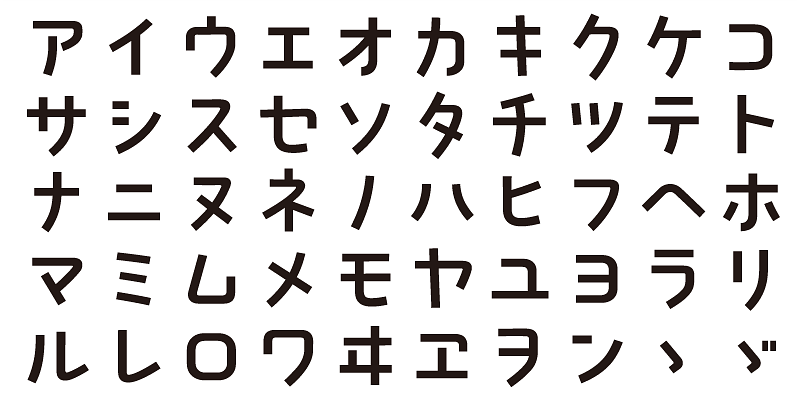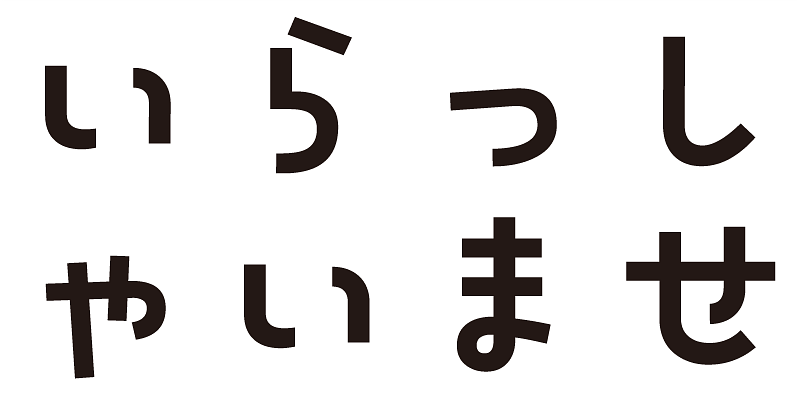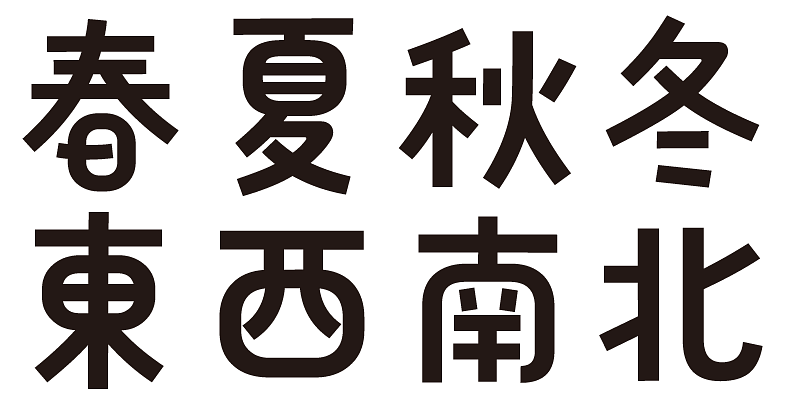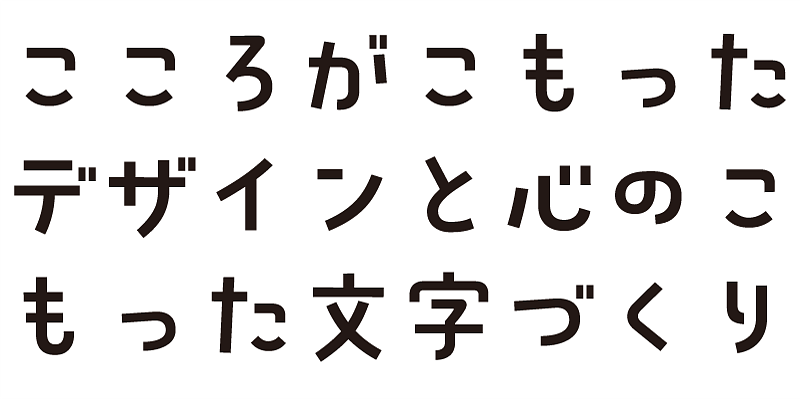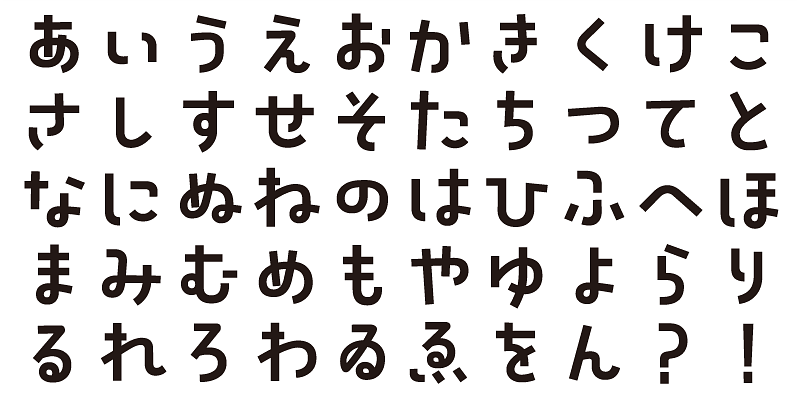
This typeface design conveys readability and usability in a clear, straightforward manner.
This font includes top 1,000 kanji characters chosen from character frequency tables made by newspaper companies, publishing houses and linguistic research institutes, plus about 400 alphanumeric, kana characters and punctuation marks.
We design typefaces with the hope that they will add underlying meaning to words expressed. We wish the user to feel good and experience comfort and joy when using these typefaces.